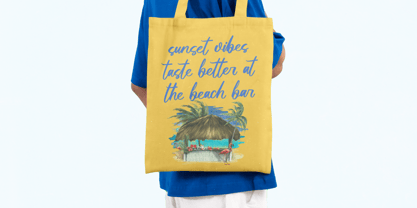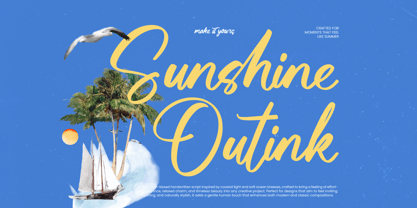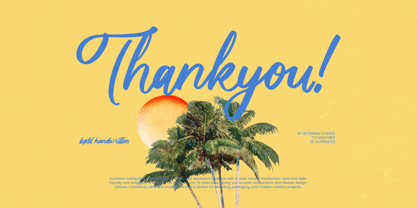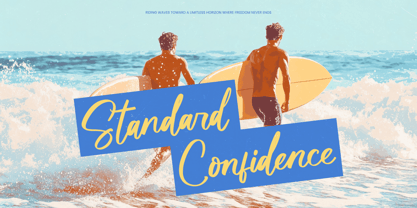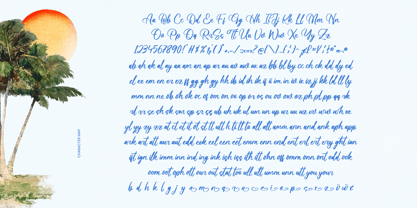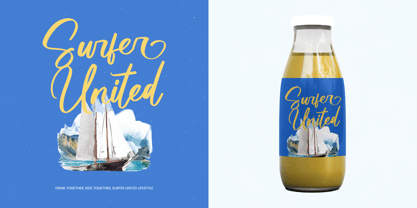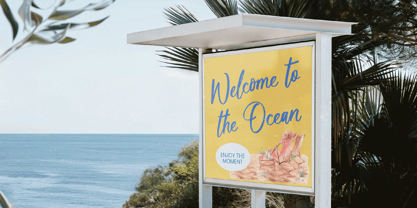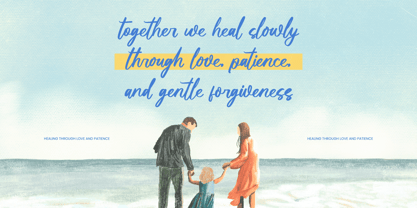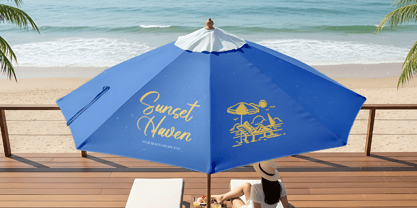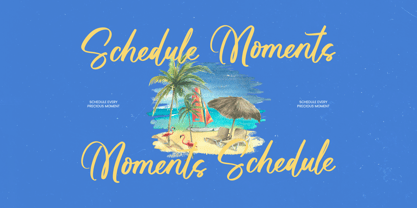
Sunshine Outink
von Letterena Studios
Die Schriftfamilie Sunshine Outink wurde von Heru Utama Putra entworfen und von Letterena Studios veröffentlicht. Sunshine Outink enthält 2 Stile und Familienpaketoptionen. Mehr über diese Familie
Sunshine Outink - Bold Handwritten
Experience the perfect blend of warmth and vibrant energy with Sunshine Outink - Bold Handwritten, a typeface that redefines modern script design. This expressive font boasts an organic flow and bold aesthetic, capturing an authentic handcrafted feel that immediately engages the viewer. Its confident strokes and natural rhythm provide a personal touch, making it an ideal choice for creators looking to establish a unique visual identity that stands out in a crowded marketplace.
Designer: Heru Utama Putra
Foundry: Letterena Studios